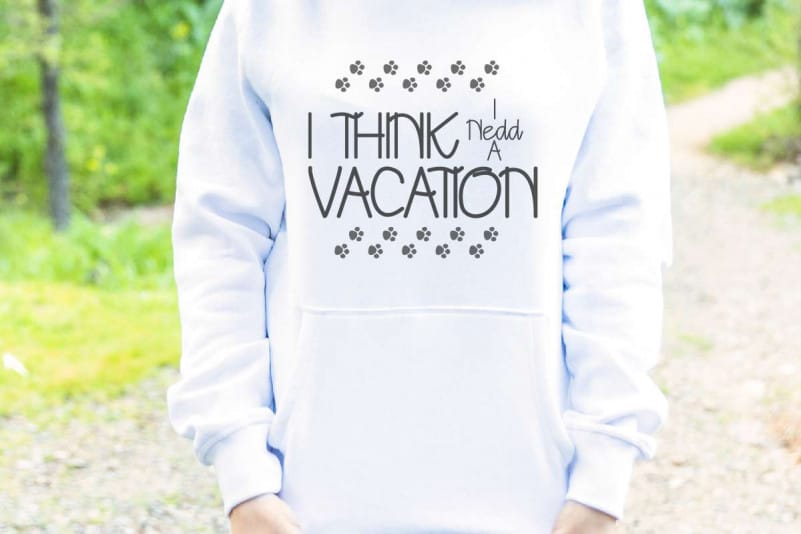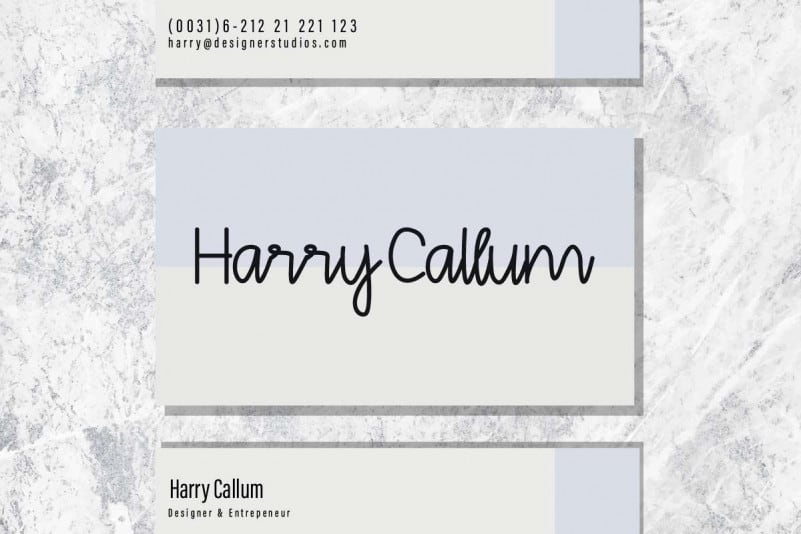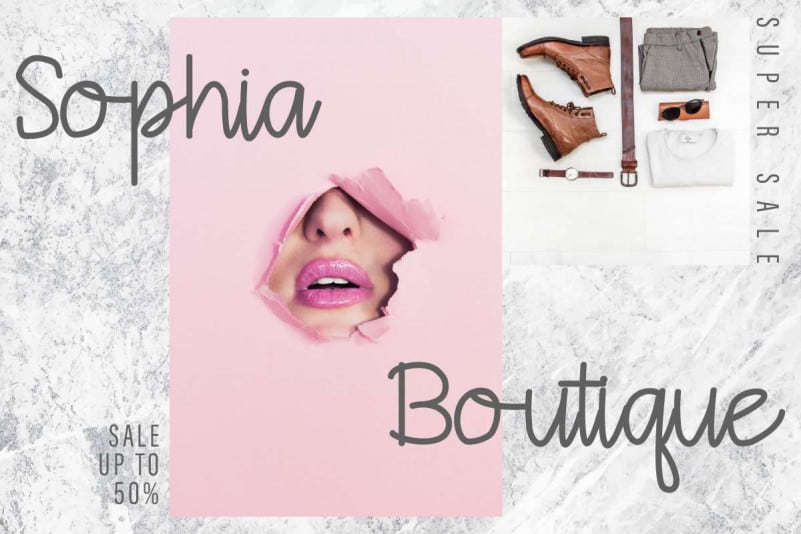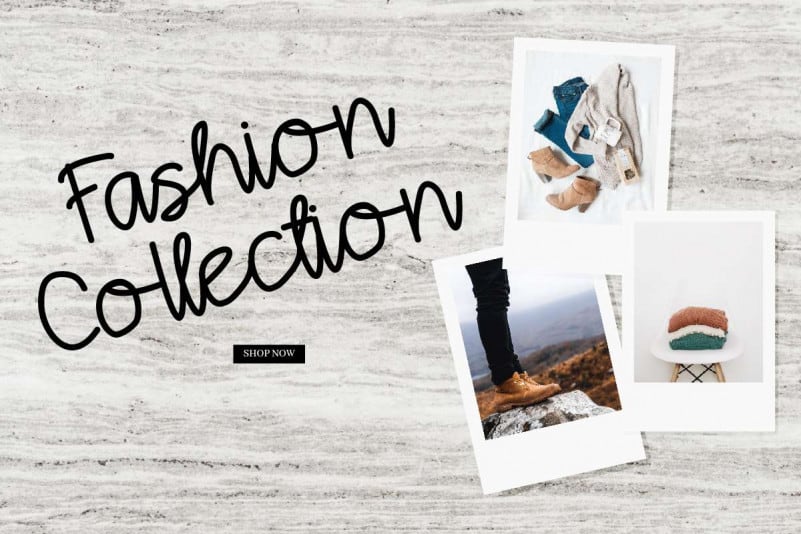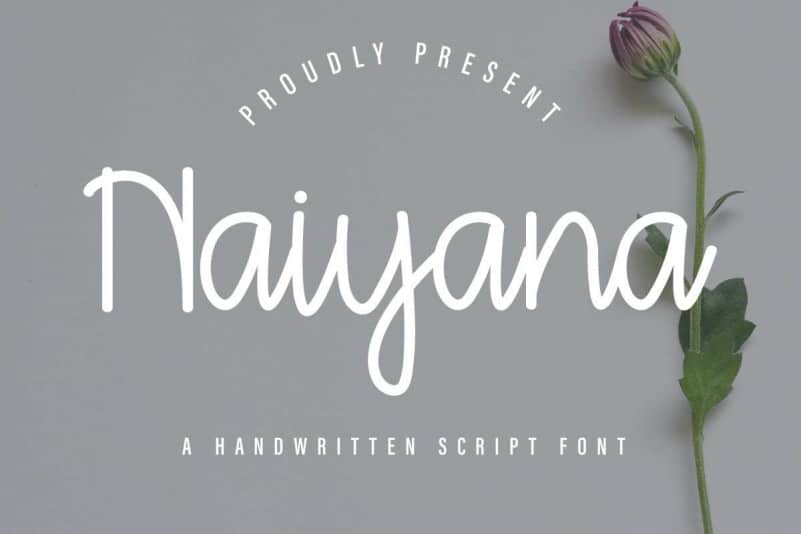
Naiyana Handwriting Font
Naiyana Handwriting Font is an unique display script typeface with pen style. This font has a stunning characters set, perfectly managed with well spaced and kerning. The theme style of this font will elegant, vintage, stylish, sophisticated and classic style.
Naiyana Handwriting Font will be great for any projects including : branding, logo, stationery, business card, signage, flyer, brochure etc. Almost all industries will be match for this typeface: wedding, events, real estate, architect, law firm, florist, gardening, makeup artist, travel, hotel, musician etc.